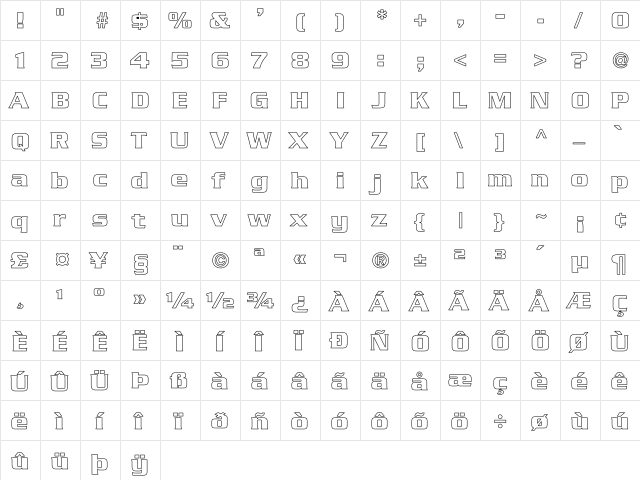
Serpentine-Bold-Bold Hollow Regular
Design Context for Serpentine-Bold-Bold Hollow Typeface
Serpentine-Bold-Bold Hollow takes a measured approach to typography — its balanced proportions and neutral character make it a reliable workhorse for both digital and print work. The heavy weight commands attention and anchors typographic hierarchies.